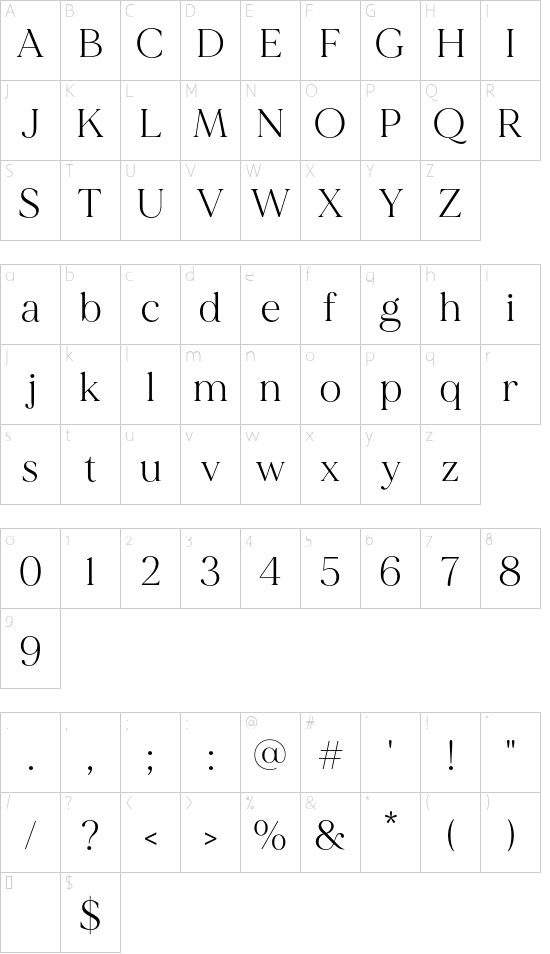
Made Mirage Font
Made Mirage Font - Web made mirage is a modern elegant serif font family. Made mirage will perfect for many project:
Web made mirage is a modern elegant serif font family. Made mirage will perfect for many project:
Made mirage will perfect for many project: Web made mirage is a modern elegant serif font family.